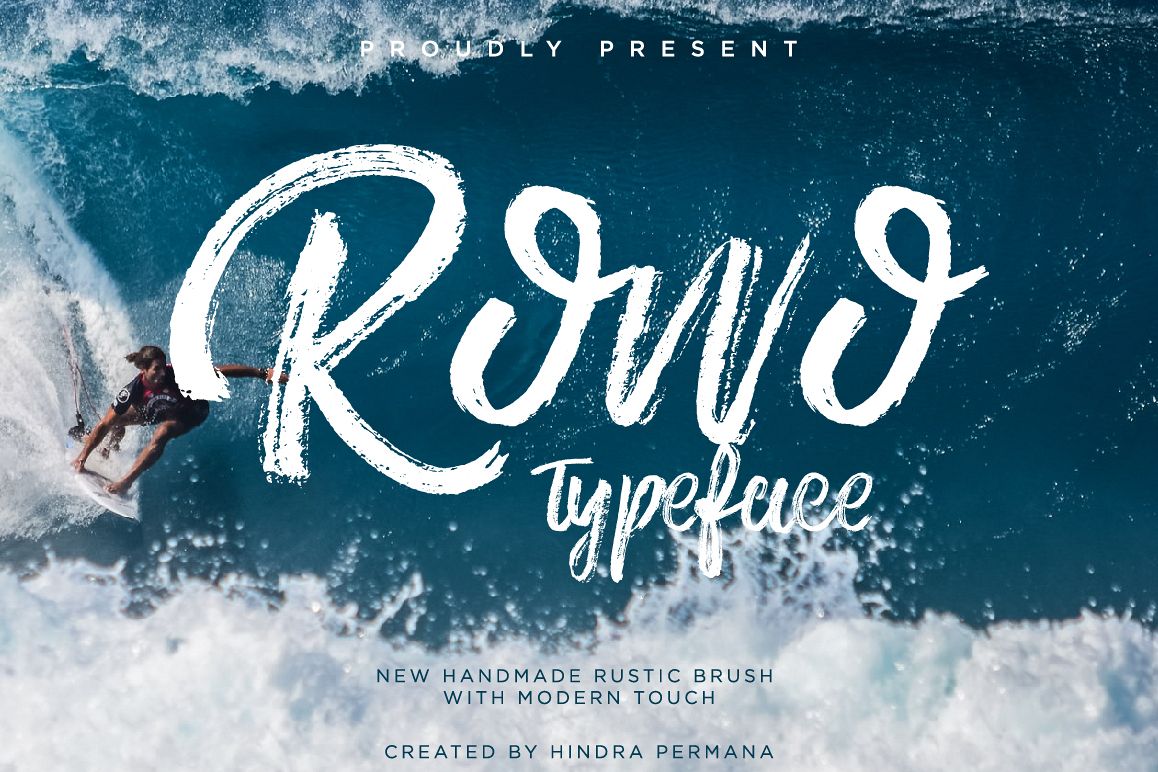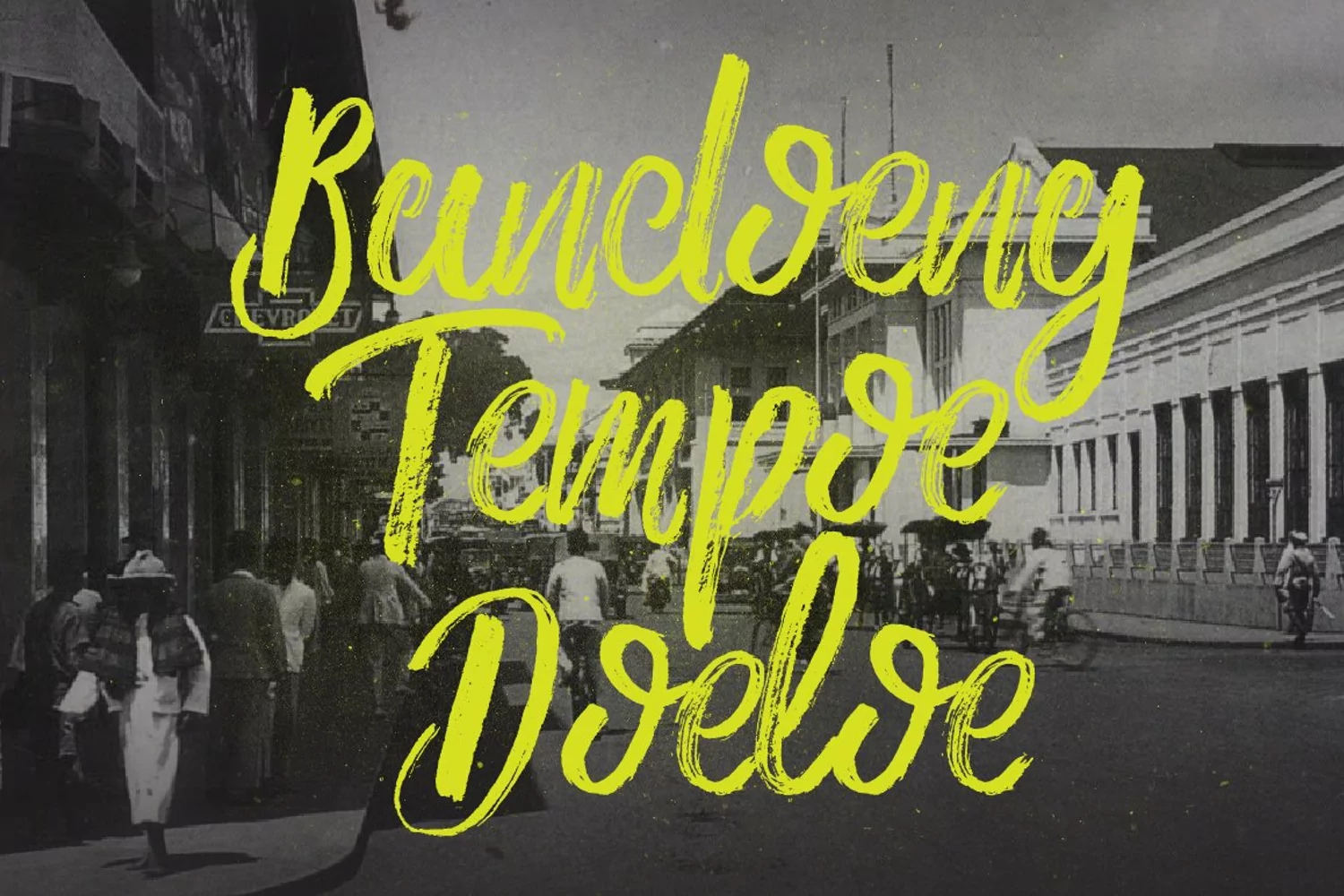
a new handmade brush with naturaly and modern touch so the look of stunning custom hand-lettering and you can happy to mix and match any project with this product.i made this product with Uppercase, Lowercase, Numberic, Punctuation and Ligature for complete a simple lettering. and for bonus i made a swash line for this type so looks a great.Rowo Typeface can used for various purposes. such as the envelope desigin, logo, title, wedding invitations, letterhead, labels, newsletters, signage, posters, badges, etc.What this Include :